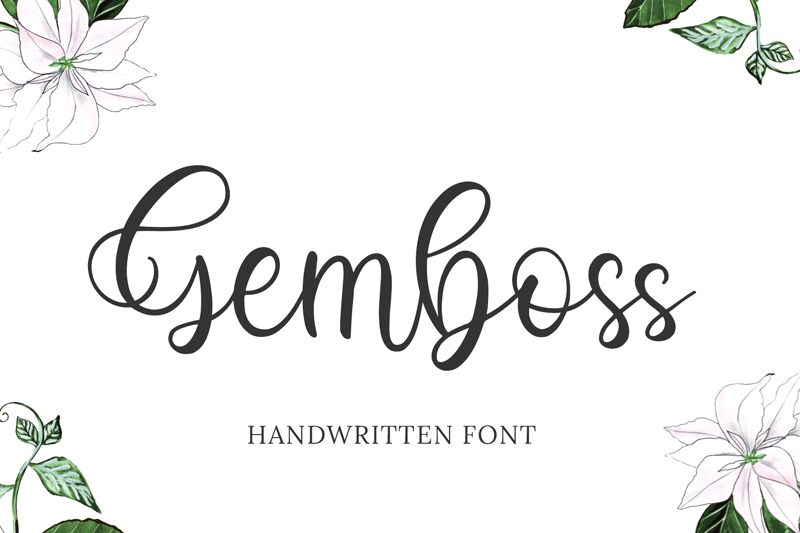
Gemboss, designed by Bearytype, is an exquisite handwritten font that exudes elegance and sophistication. With its semi-light weight, this font delicately captures the essence of beauty in every stroke. Its flowing curves and natural feel make it perfect for wedding invitations, feminine branding, and romantic projects. Whether you're designing a logo for a high-end fashion brand or creating stunning social media graphics for a luxury spa, Gemboss adds a touch of grace and charm to any project. Let your creativity soar with this captivating font that whispers enchantment at every glance.